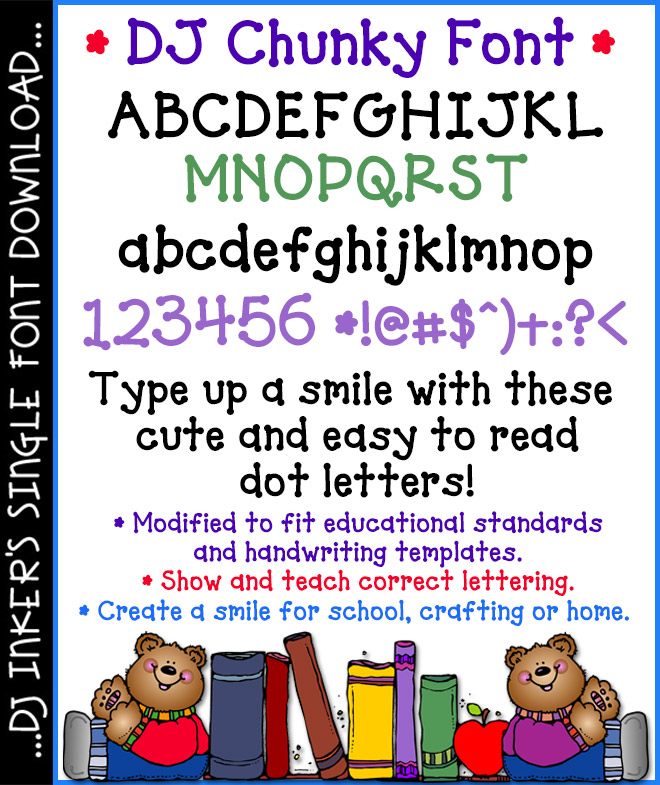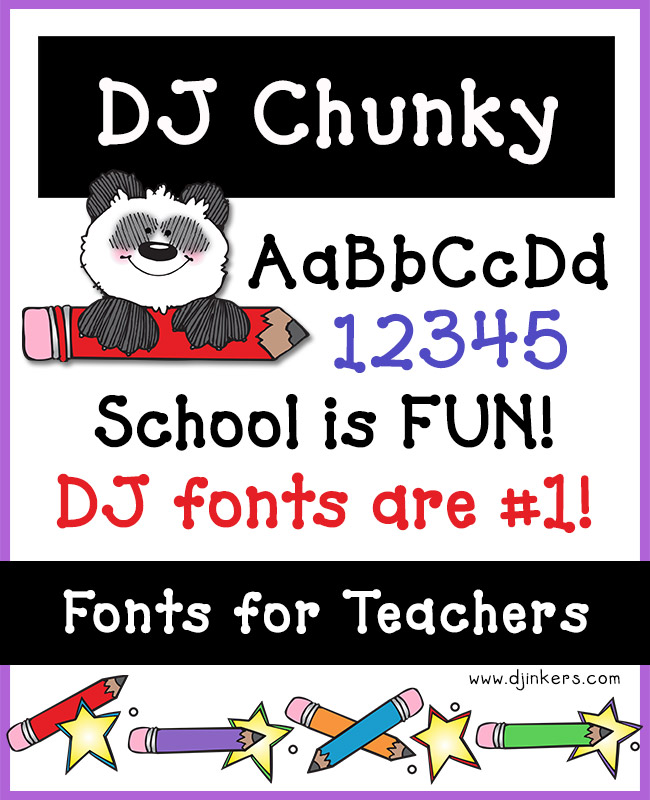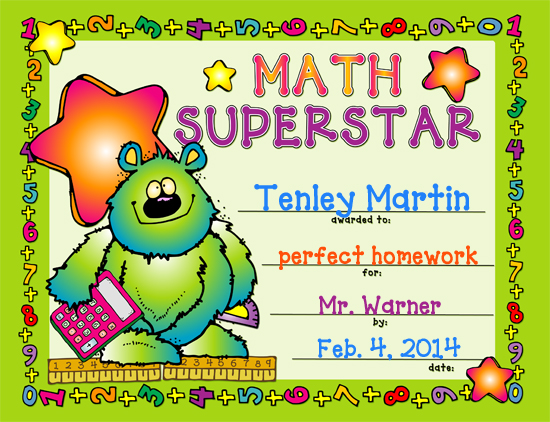
DJ Chunky Font - Dot Lettering Download
DJ Chunky is the perfect dot letter font for preschool and kindergarten teachers! You can make any project look cute and fun in a snap. :) Plus, the hand-written letters are bold, easy to read and look great in any size or color. In fact, it's one of our most popular fonts at DJ Inkers!